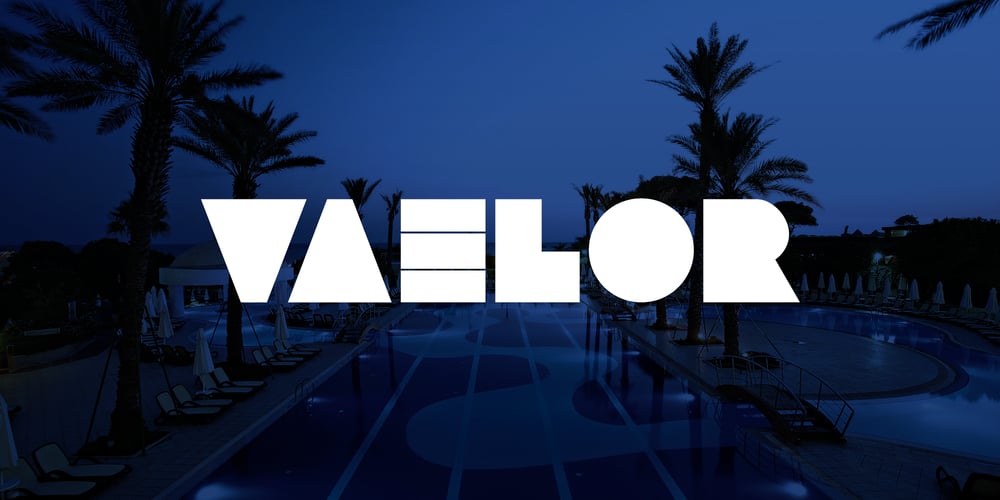
Vaelor
Vaelor font
Vaelor Font Family was designed by Nasir Baradari and published by nasirbaradari. Vaelor contains 1 styles and family package options. The coolest royal font is here. This font was designed with the goal of exotic and rich looking, every single letter and every single character itself is a logo in this typeface. You can use it for any purpose that you want and this font will make your design stand out. Certain characters are designed to look unique.